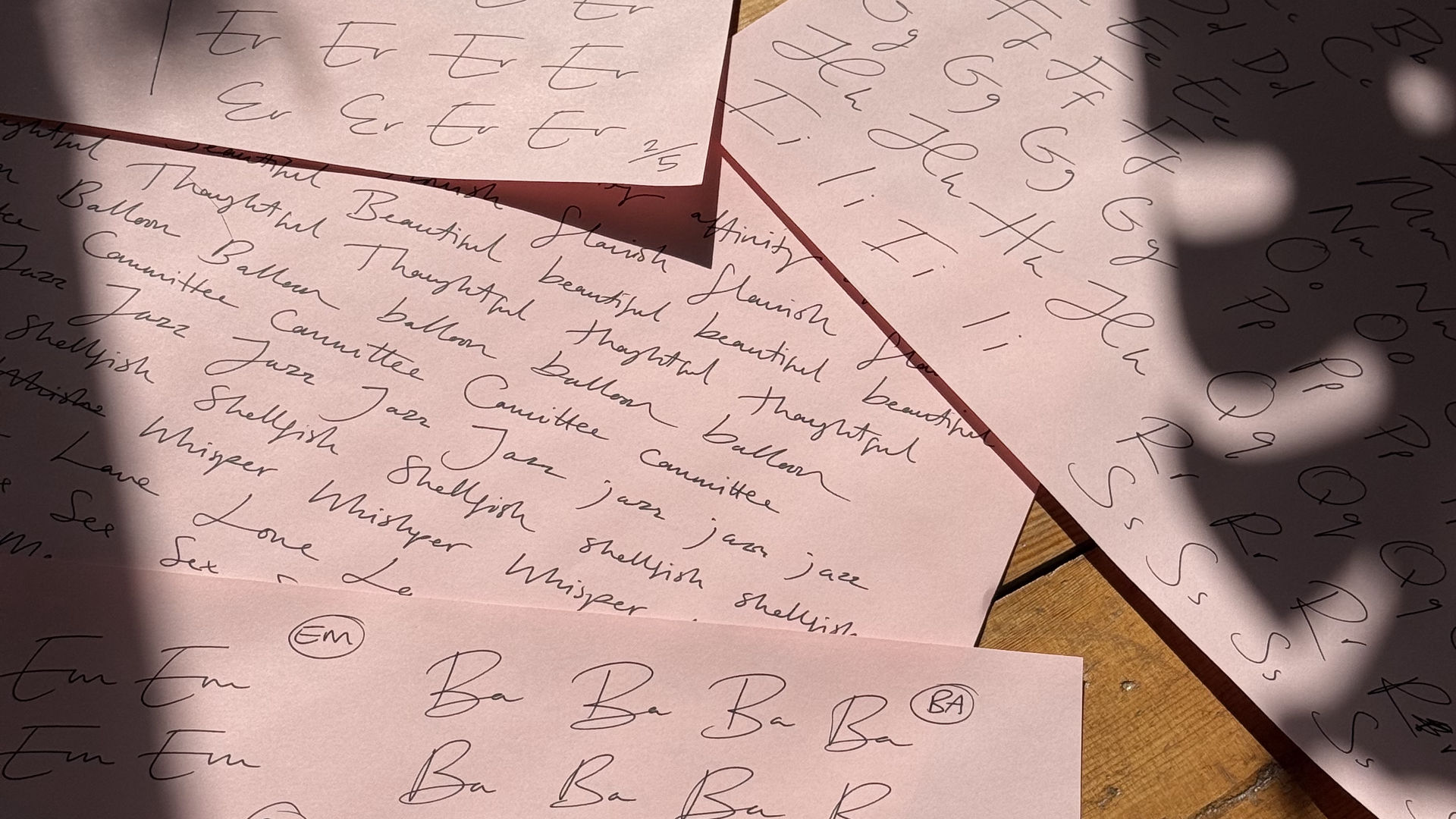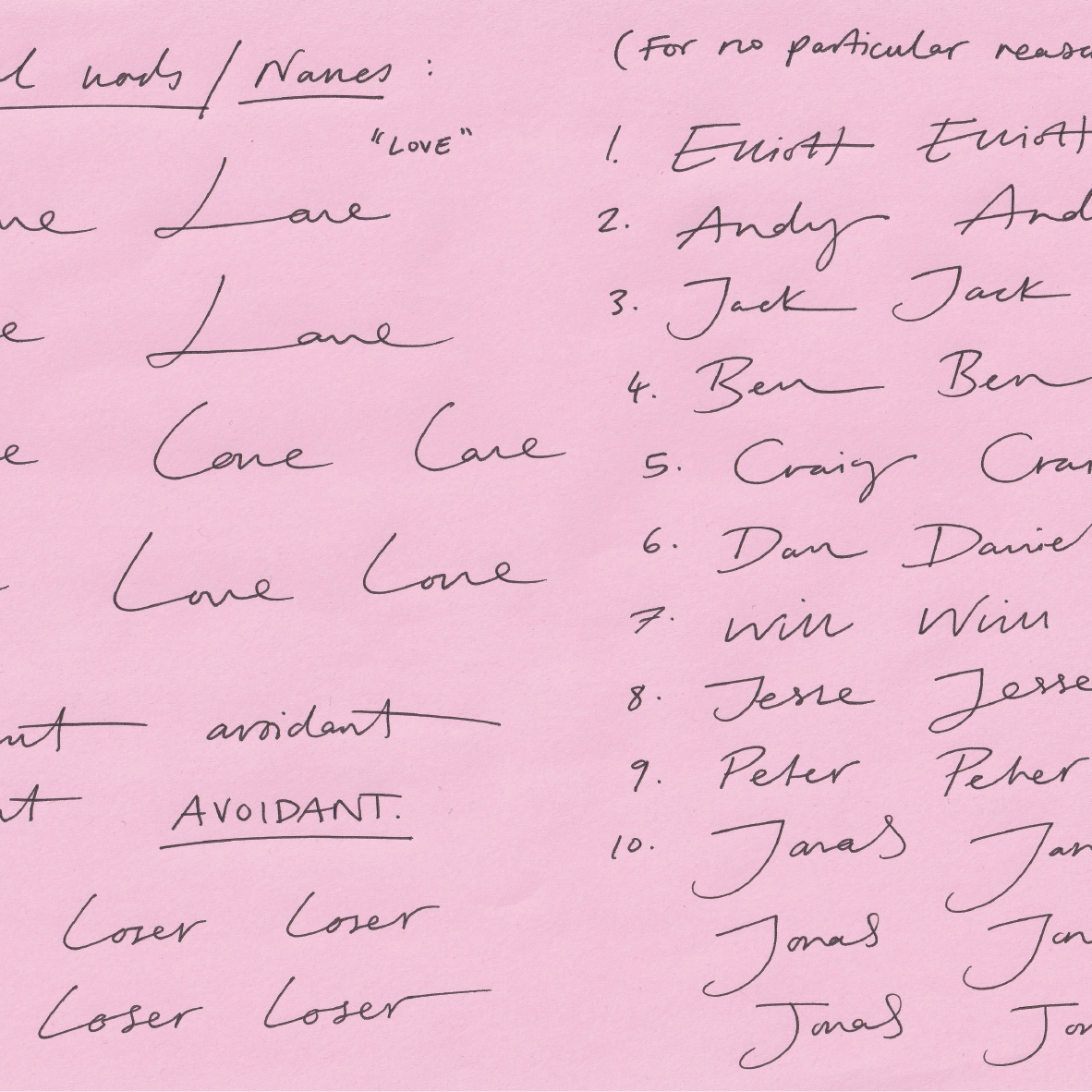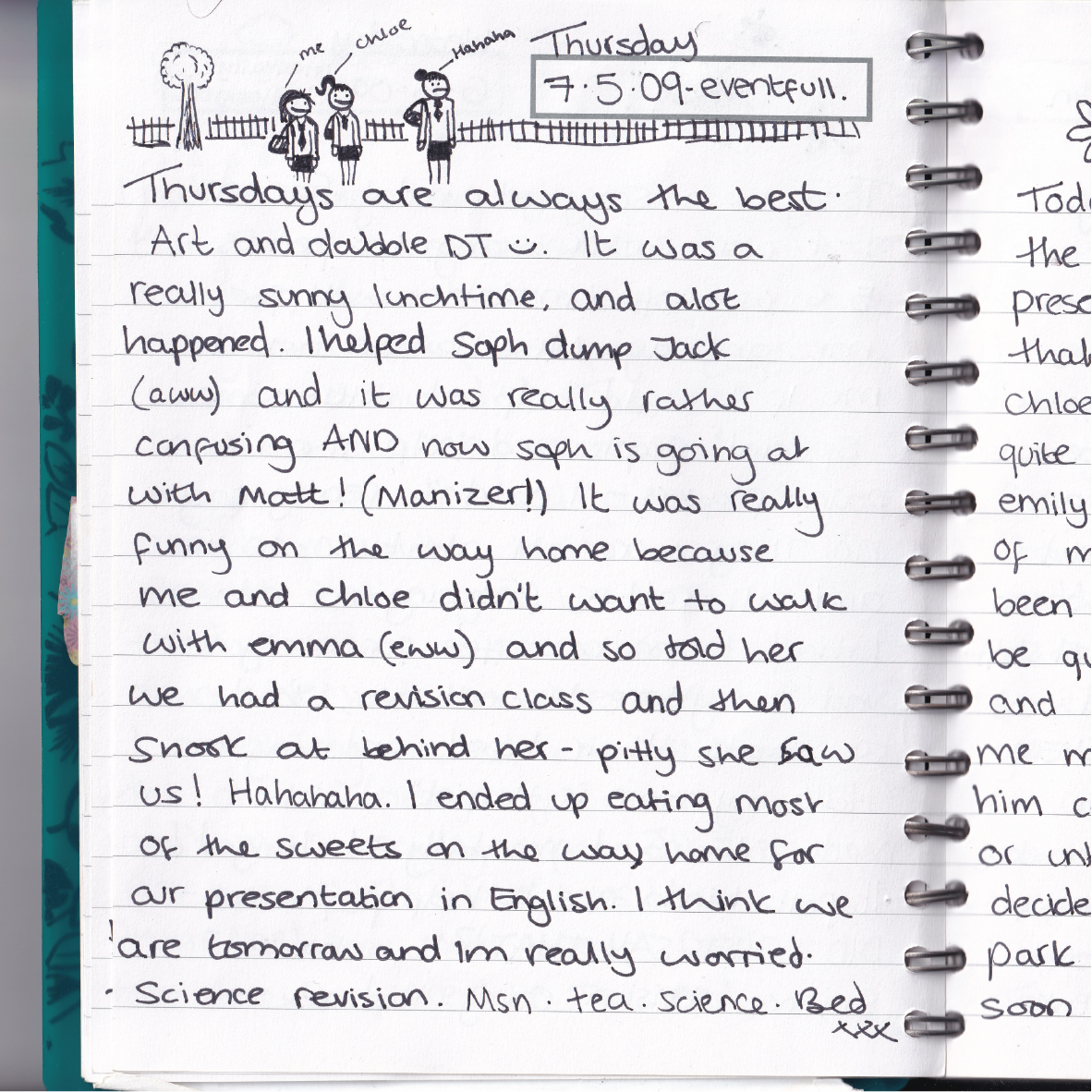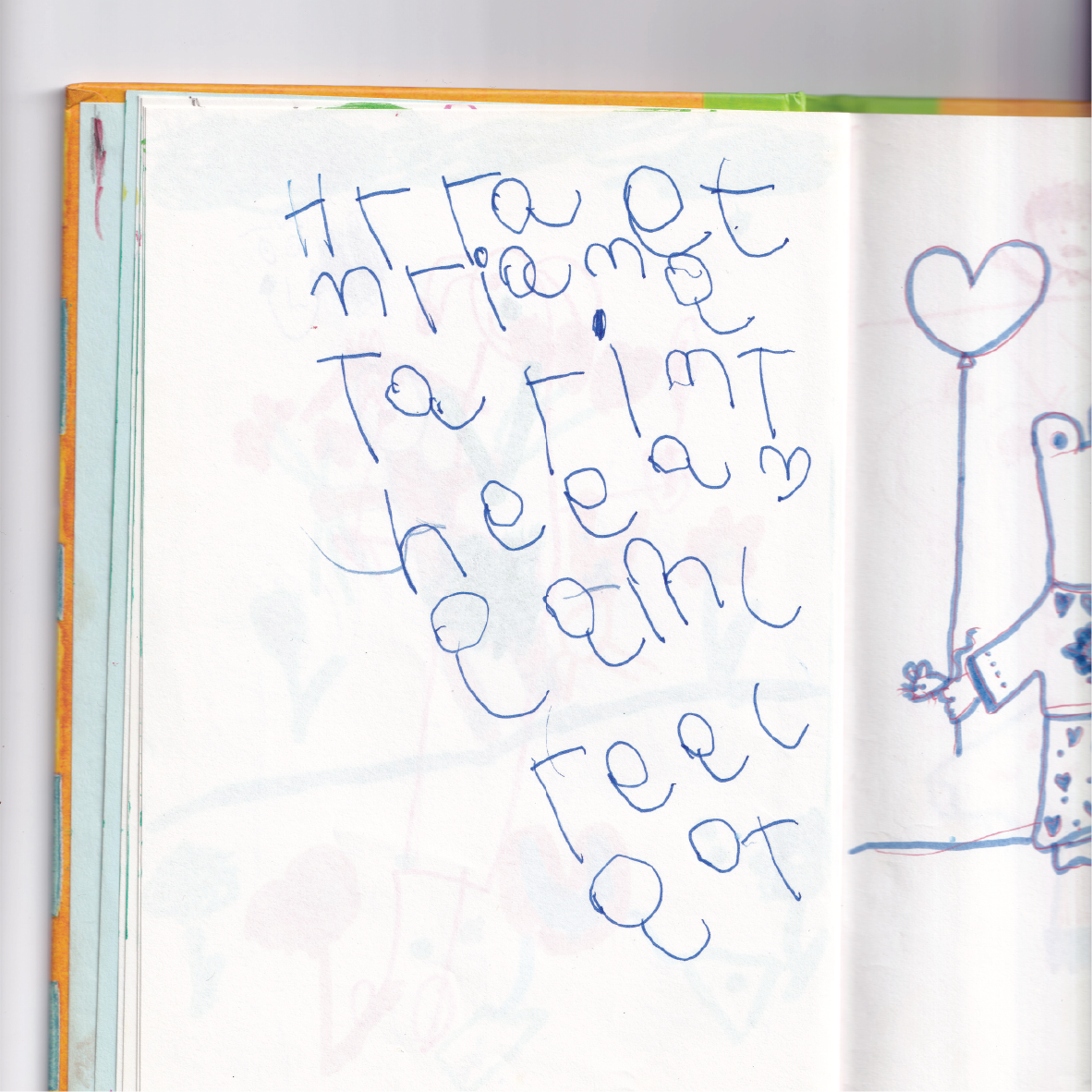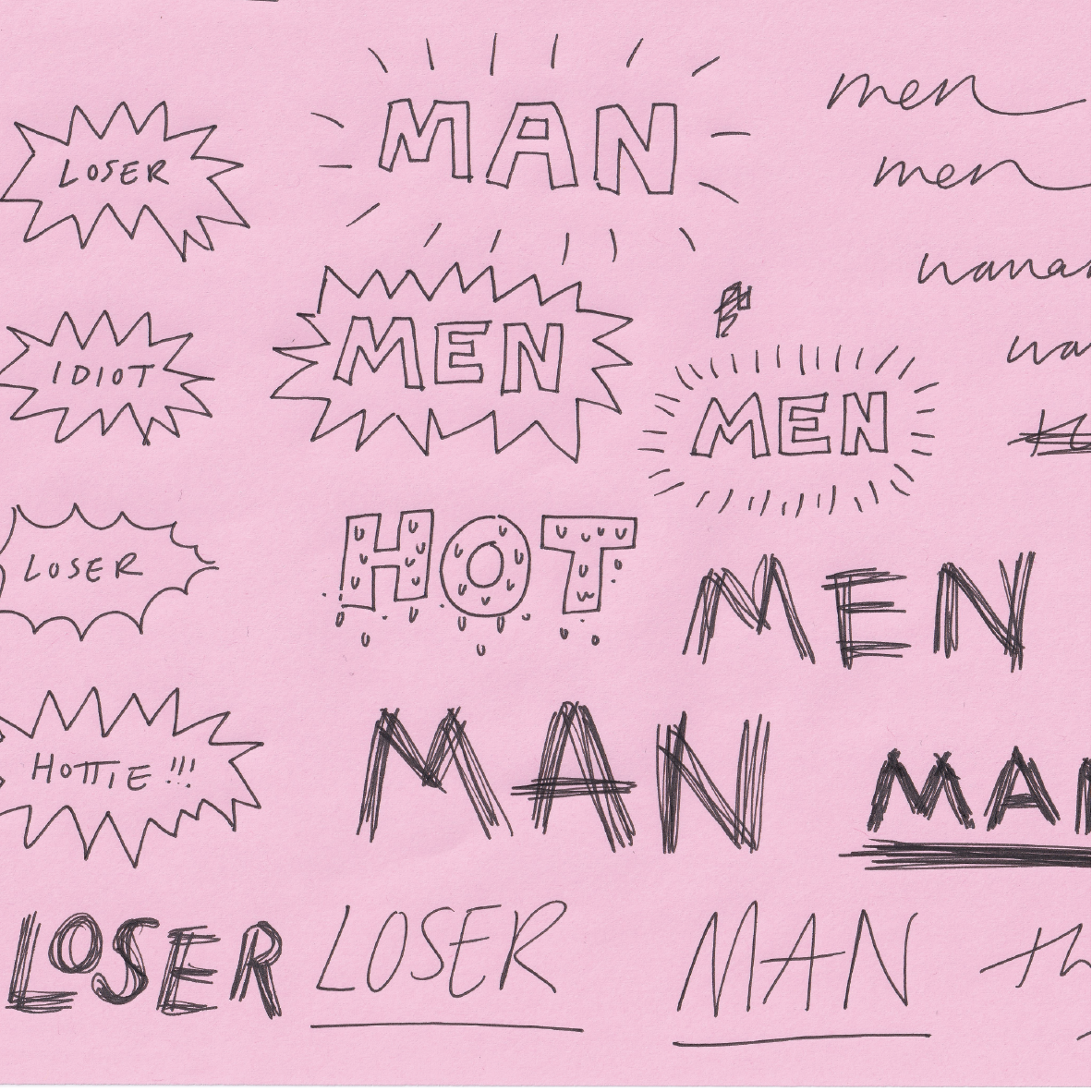
F37 Harriet
Harriet Richardson invites us into thirty years of private diary pages with F37 Harriet 4, 13, and 30 — a collection that traces life through three defining eras of her handwriting.
Starting with F37 Harriet 4 from 1999, Harriet’s handwriting is naïve. At just four years old, even the most critical type designers among us won’t hold the inconsistent heights, large size, and irregular shapes against her. The playful rawness and unpolished warmth of the style could only have come from someone unabashed of style. In F37 Harriet 13 from 2009, at age thirteen, her handwriting is distinctly more self-aware. The pressure and strain are visible — signs of an applied, slightly forced style. That universal moment of trying so hard to look like you’re not trying. The most chalant-nonchalant of all the ages. Now, in 2025, there is a casual confidence present throughout the letter shapes, with her distinct ductus immortalised in F37 Harriet 30. All three styles are packed with complex OpenType features to give each an authentic handwritten feel, as well as a collection of drawings to provide appropriate doodling details. F37 Harriet 30 is the most technically complex of the three, offering dozens of ligatures and alternates that allow specific words like “Loser” and “Hottie” to be graphically highlighted. Even Harriet’s exes aren't safe— each one immortalised with a custom ligature. F37 Harriet 30 also includes authentic underline and strike-through features.
Harriet Richardson
The Designer
Harriet Richardson is a London-based performance artist and writer whose work unsettles the boundary between digital and physical experience.
Using her body, her experiences, and intimate documentation as material, she invites audiences into complicity— exploring love, sex, power dynamics, and the complexity of human connection— more often than not through a humorous lense. Harriet believes we begin performing the moment we become self-aware, and her work draws directly from everyday life, turning private moments into collective, participatory art. Her performances fuse offline artwork with humour, satire, and conceptual protest, opening up questions about class, conflict, climate crisis, and the quiet violence of social structures.
Inspiration
F37 Harriet
Thirty
Thirteen
Four
Interview
Tell us about the inspiration behind your collaboration with F37®×. If it was an unused concept, what was the potential use case for it.
So much of my work comes from some deep-rooted, restless need to document. I think, more than anything, through fear or anxiety of forgetting. As an avid diary-keeper, I've come to see our handwriting like our sense of smell: suddenly you catch a random wiff of a past-time and you’re transported, whether you wanted to go back there or not. That’s really the heart of this collaboration with F37— taking something so personal and fallible (my own handwriting at different ages) and turning it into something people can feel, and use, or even misuse. My idea was to make a typeface that felt diaristic and confessional— and at it's very core, a completely selfish act of wanting to immortalise, and play with, past versions of myself. 'As concerning as it is endearing', as my therapist put it. And as a former designer, I know the value of a convincing handwritten font— but I also saw a gap: instead of different weights, why not different ages? To me, that simple shift pushes it from just a font to a piece of art in its own right.
When starting the process of creating your font, what typographic conventions did you look to break or experiment with? Or were there conventions of functionality you championed?
Honestly, it was really just a case of pouring through three decades of diaries and being as time-accurate as possible. The whole point was to keep it unconventional— not polished, not too clean, but true to how my handwriting actually looked at ages 4, 14, and 30. The fun was in compiling and having a go at being different versions of myself again— which turned out to be worryingly easy to slip back into. Once a yearner always a yearner, I guess. So instead of breaking typographic rules in a technical sense, I wanted to break the illusion that a handwritten font should look neat, timeless, or ‘perfectly imperfect.’ Mine really isn’t.
Now that your typeface has launched, what would be your dream project to use your F37® typeface on?
I wish to receive handwritten letters from myself in the post that I never wrote, making me question reality even more than I currently do. I adopt myself as a pen pal, responding to the different ages with confessions, giving advice, asking questions. After a lot of back and forth over many months, it turns out 4-year-old me is more emotionally literate and psychologically capable than the lot of us. All three are unsurprised.
What have you learnt through developing and creating your own typeface(s) with our F37® type designers?
That, just like accents, you think you don’t have a style until it’s compared to others. My handwriting looked so standard and everyday to me, but when dissected by typographic experts, I was presented with a set of quirks and personality I’d completely overlooked— all of which now live on in the letterforms. What a treat.
How would you describe your typeface in three words?
It accidentally has all the ingredients for a dream date: Intimate. Flexible. Overly confessional.